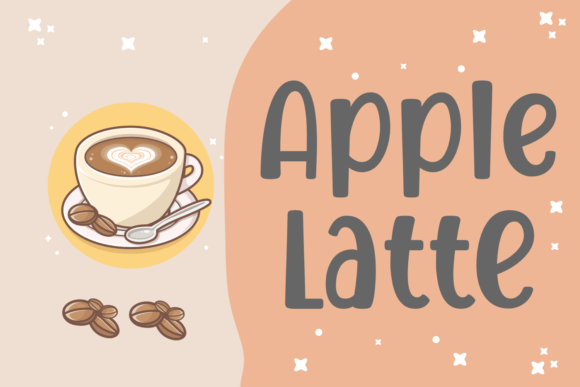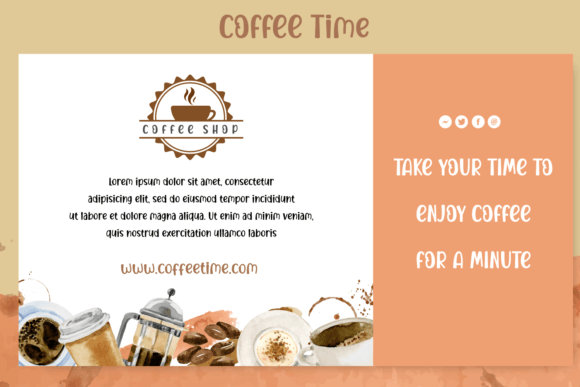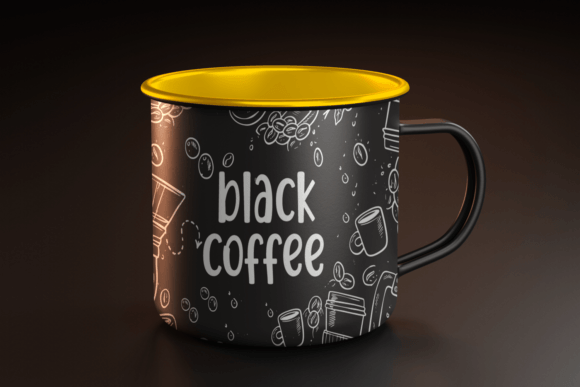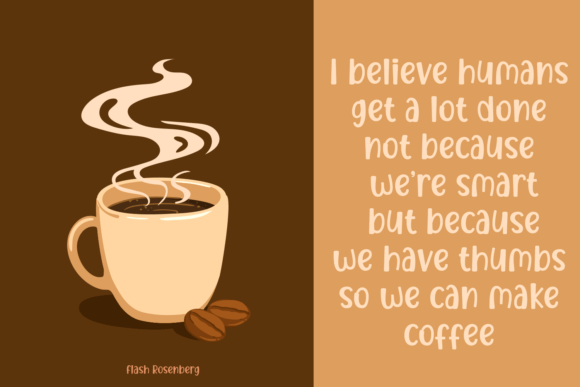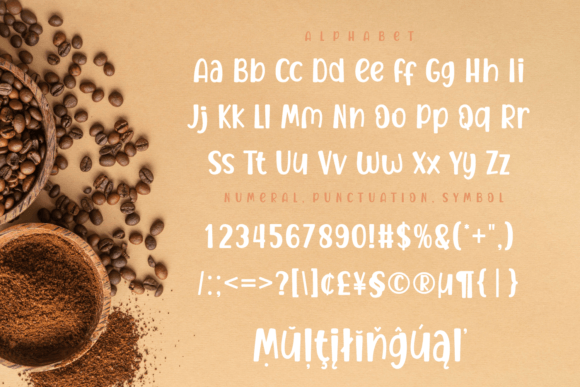
Apple Latte Font
A Beautiful and Versatile Handwritten Font
The Apple Latte Font is a beautiful and versatile handwritten typeface that adds a cute, friendly touch to any design. With its flowing strokes and charming personality, this font is perfect for a variety of creative projects. Whether you’re designing invitations, greeting cards, logos, or social media posts, the Apple Latte Font brings a delightful, approachable feel to your work, making it an excellent asset for your design library.
The Apple Latte Font is an ideal choice for invitations and greeting cards. Whether you’re creating birthday invitations, wedding invites, or holiday cards, this font adds a personalized, charming touch to your designs. Its friendly, handwritten style gives your cards an inviting and warm feel, making it perfect for all types of special occasions.
Great for Logos and Branding
For logos and branding, the Apple Latte Font offers a unique and approachable style. Whether you’re designing a personal brand, creative business, or lifestyle brand, this font adds an element of charm and warmth to your brand identity. Its versatile design ensures that your logo is memorable and conveys both professionalism and friendliness.
Ideal for Social Media and Digital Content
For social media and digital content, the Apple Latte Font works wonderfully. Whether you’re creating Instagram posts, Pinterest graphics, or blog content, this font’s cute, friendly vibe adds a special touch to your posts. Its legibility and playful style ensure that your audience engages with your content, giving it a personal and authentic feel.
Perfect for Printables and Craft Projects
For printables and craft projects, the Apple Latte Font is an excellent choice. Whether you’re working on DIY crafts, printable planners, or custom labels, this font adds a unique, sweet charm to your creations. Its handwritten feel makes your printables feel personal and homemade, ensuring they stand out and make an impact.
Elegant, Legible, and Fun
Despite its charming design, the Apple Latte Font remains legible and easy to use. Its smooth strokes and well-spaced characters ensure your text is clear and easy to read, even for longer passages or smaller sizes. Whether you’re creating headlines, captions, or body text, this font strikes the perfect balance of fun and clarity, making it suitable for various types of creative work.
Add Charm and Personality to Your Designs with Apple Latte Font
If you’re looking for a cute, friendly, and versatile handwritten font to enhance your designs, the Apple Latte Font is the perfect choice. Whether you’re working on invitations, logos, greeting cards, or social media graphics, this font adds a personalized, charming touch to your work. Let the Apple Latte Font bring joy and style to your creative projects and help your designs stand out with character and warmth.